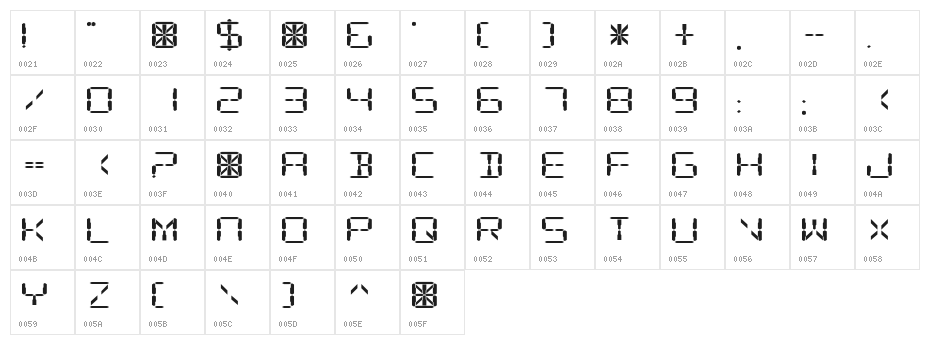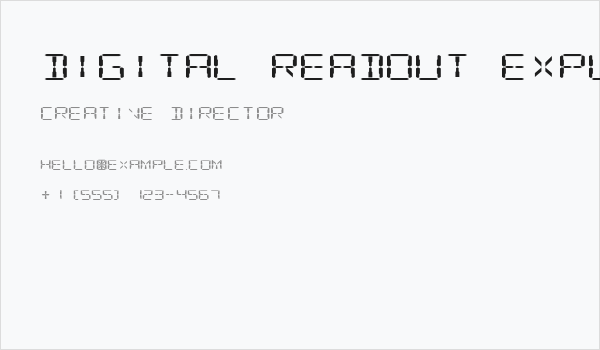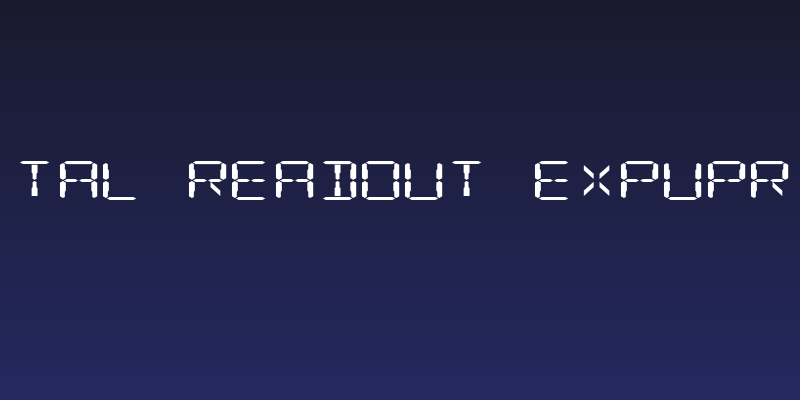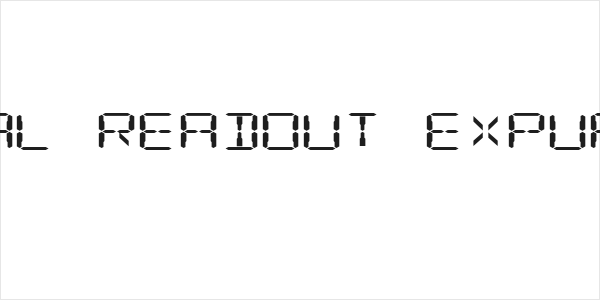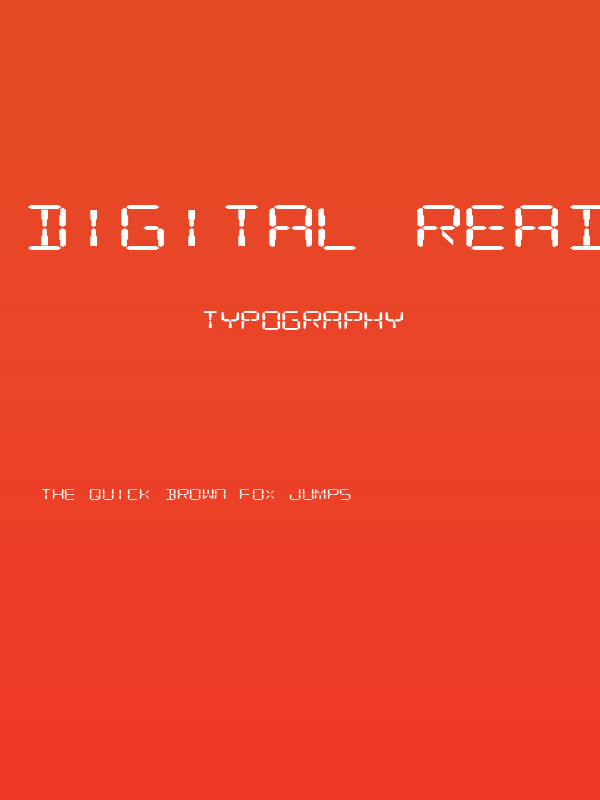
Digital Readout ExpUpright Font
Digital Readout ExpUpright Description
This font is inspired by digital readouts, featuring a segmented design reminiscent of LED displays. Each character is constructed with a series of straight lines and angles, creating a geometric and technical appearance. The uppercase and lowercase letters maintain a consistent style, with clear differentiation between similar characters. Numbers and special characters follow the same segmented pattern, ensuring uniformity across all glyphs. The font's design is highly legible, making it suitable for digital-themed projects or where a futuristic look is desired.
| Proposed Projects | Ideal for digital interfaces, tech-themed posters, electronic device branding, and futuristic design projects. |